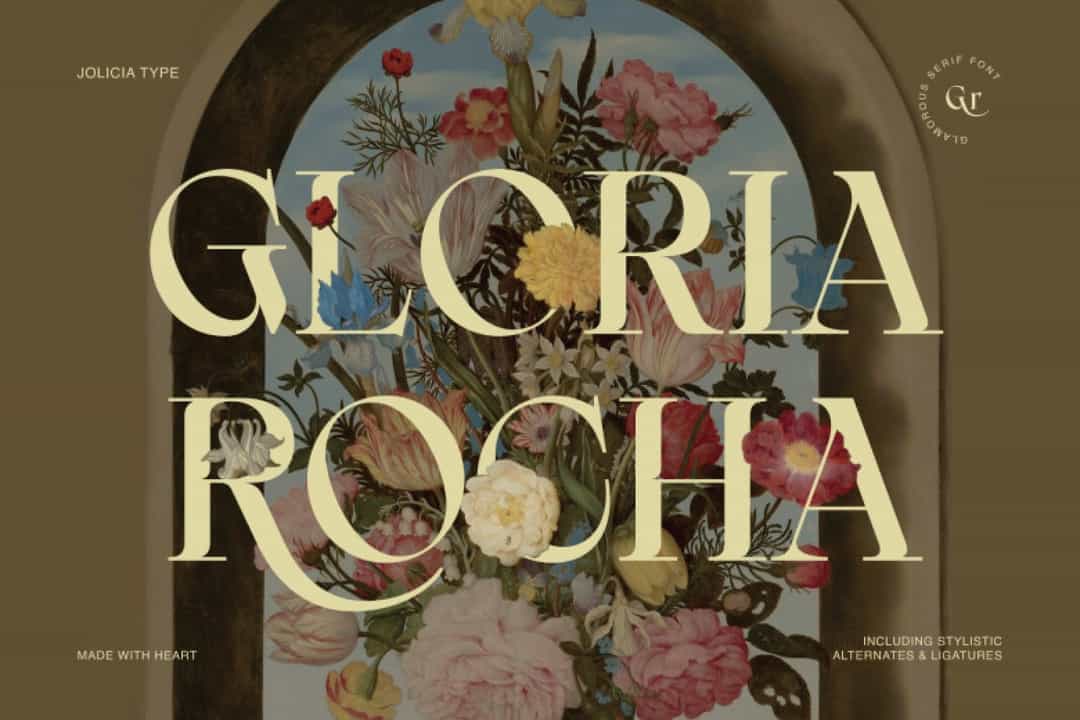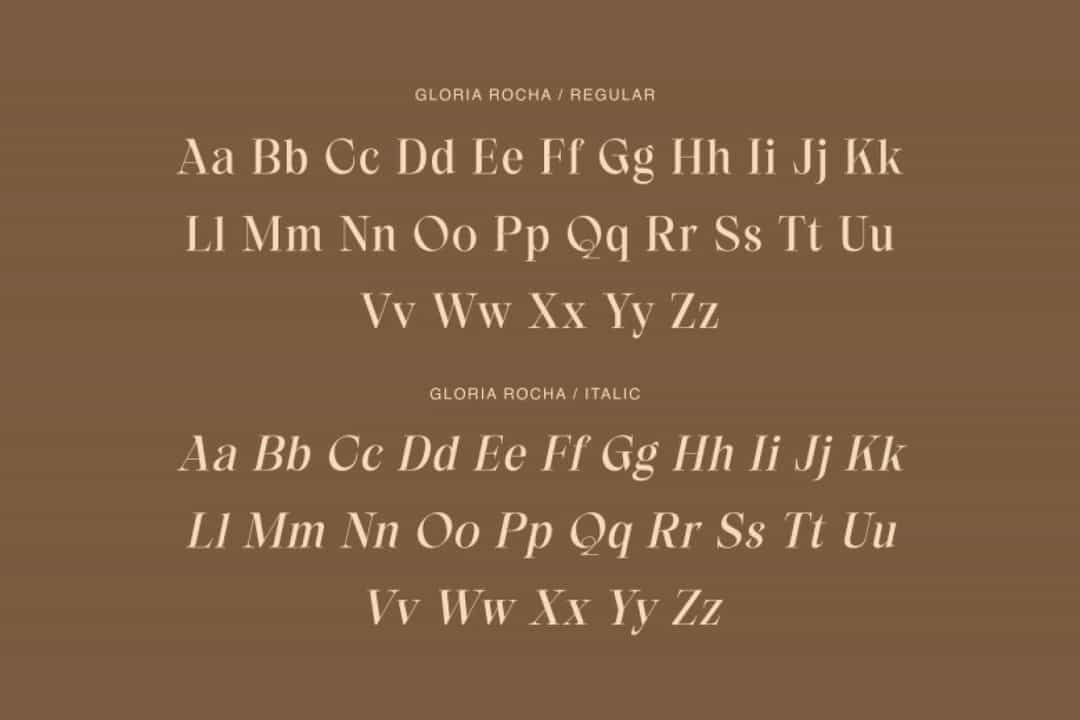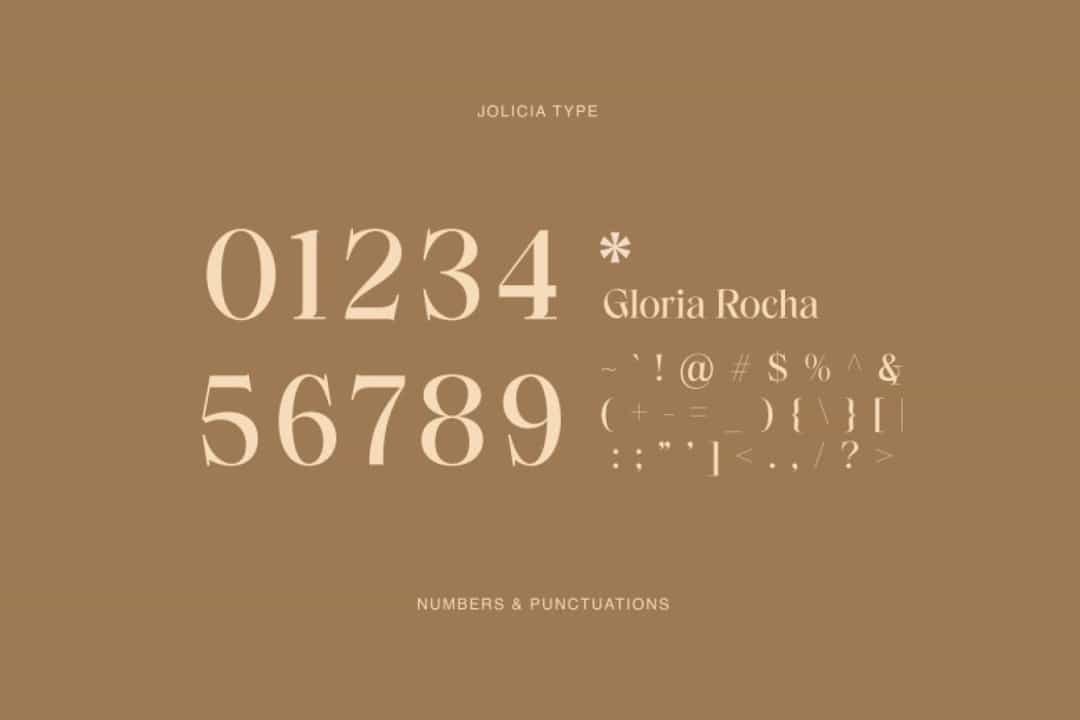
Gloria Rocha Serif Font is an exquisite example of typographic beauty. Boasting both italic and regular styles for ease of expression, Gloria Rocha allows users to effortlessly show sophistication in their work. Key to its charm are its intricately-crafted alternates and ligatures which further augment its elegance and versatility.